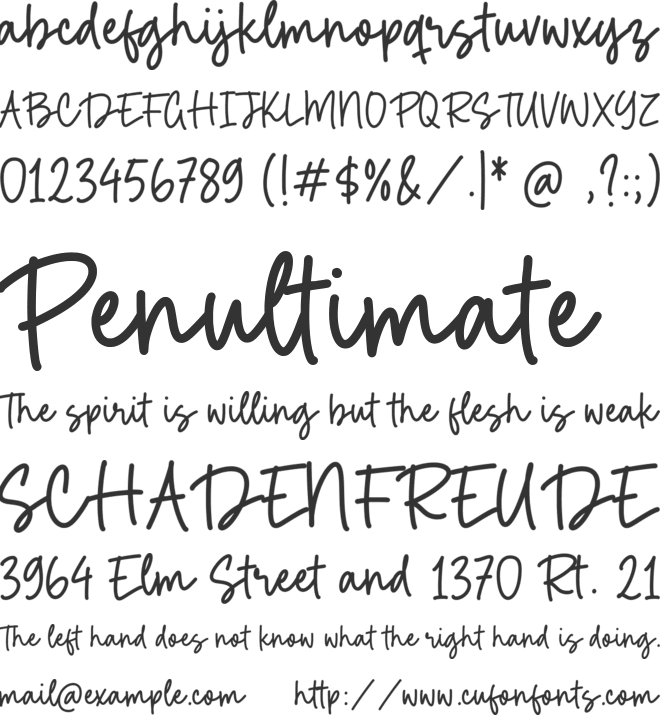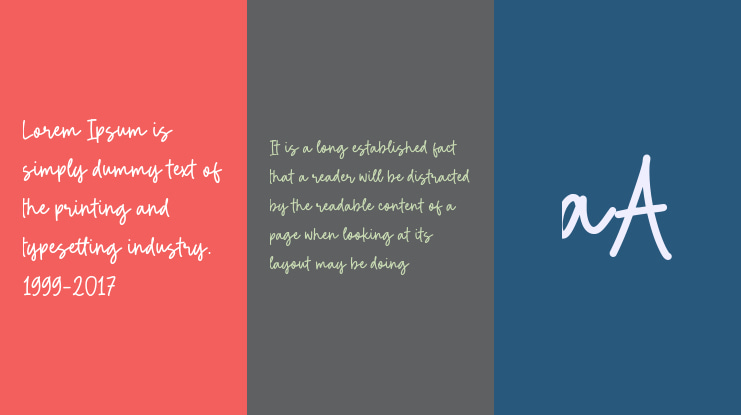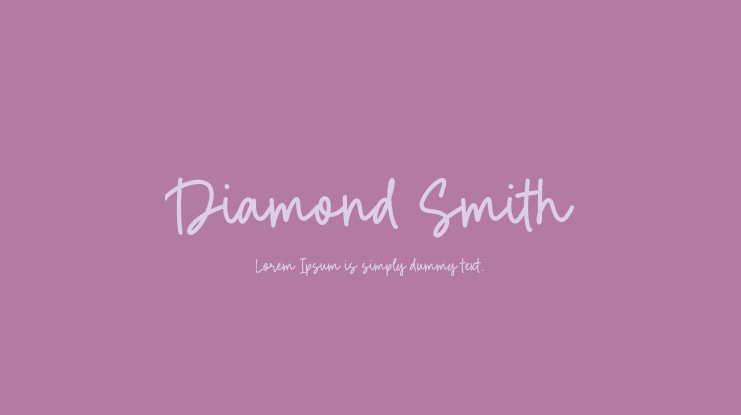
Diamond Smith Font
The Diamond Smith Handwritten Font is a modern and fresh script font that brings a warm and inviting feel to your business. Whether you're working on product packaging, a branding project, a magazine layout, social media graphics, or even a wedding invitation, Diamond Smith Font is perfect for expressing words above any background.
This font features a premium set of standard alphabet and punctuation characters in both OTF and TTF formats. Additionally, Diamond Smith Font offers multilingual support, ensuring compatibility with various languages.